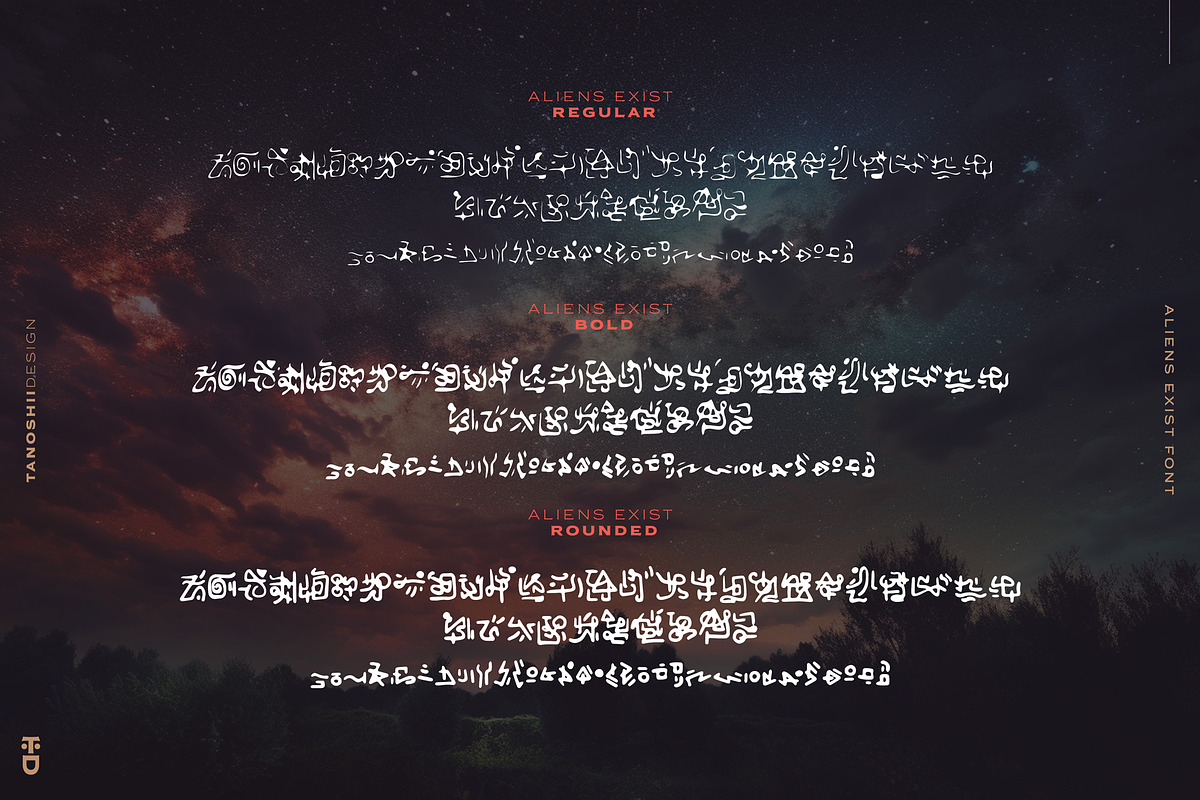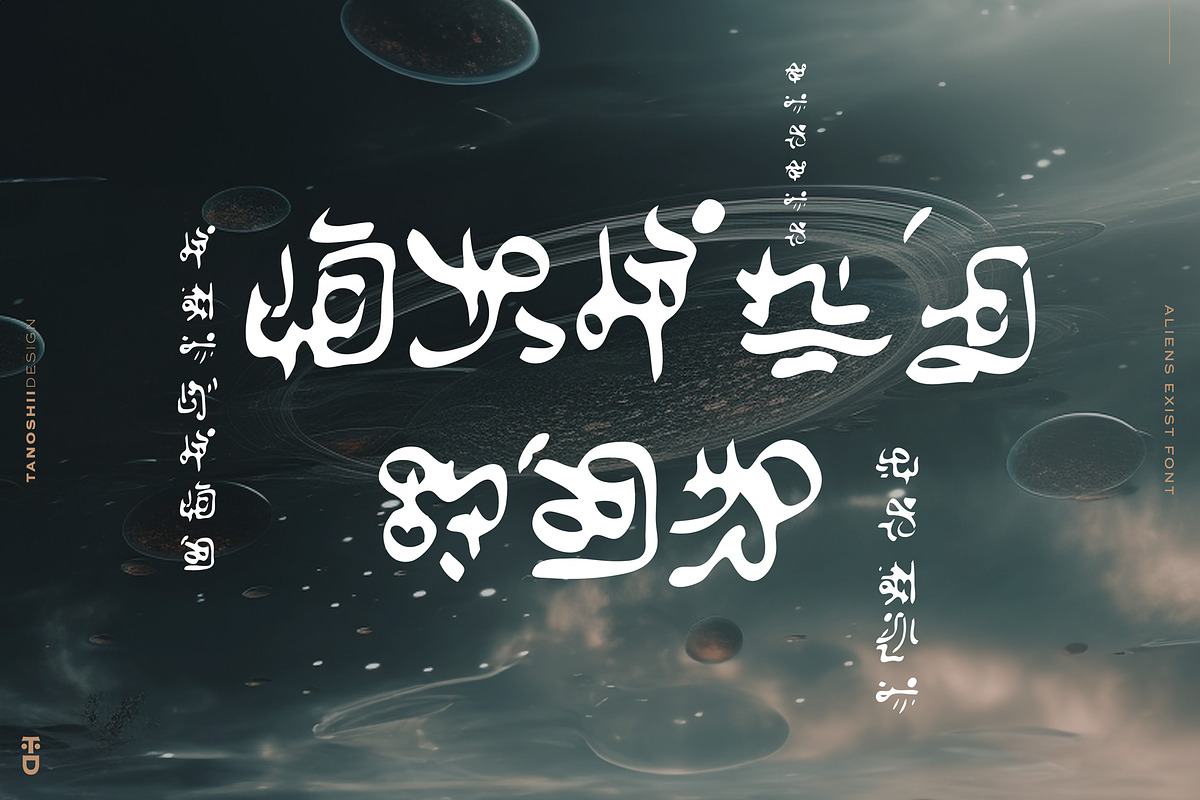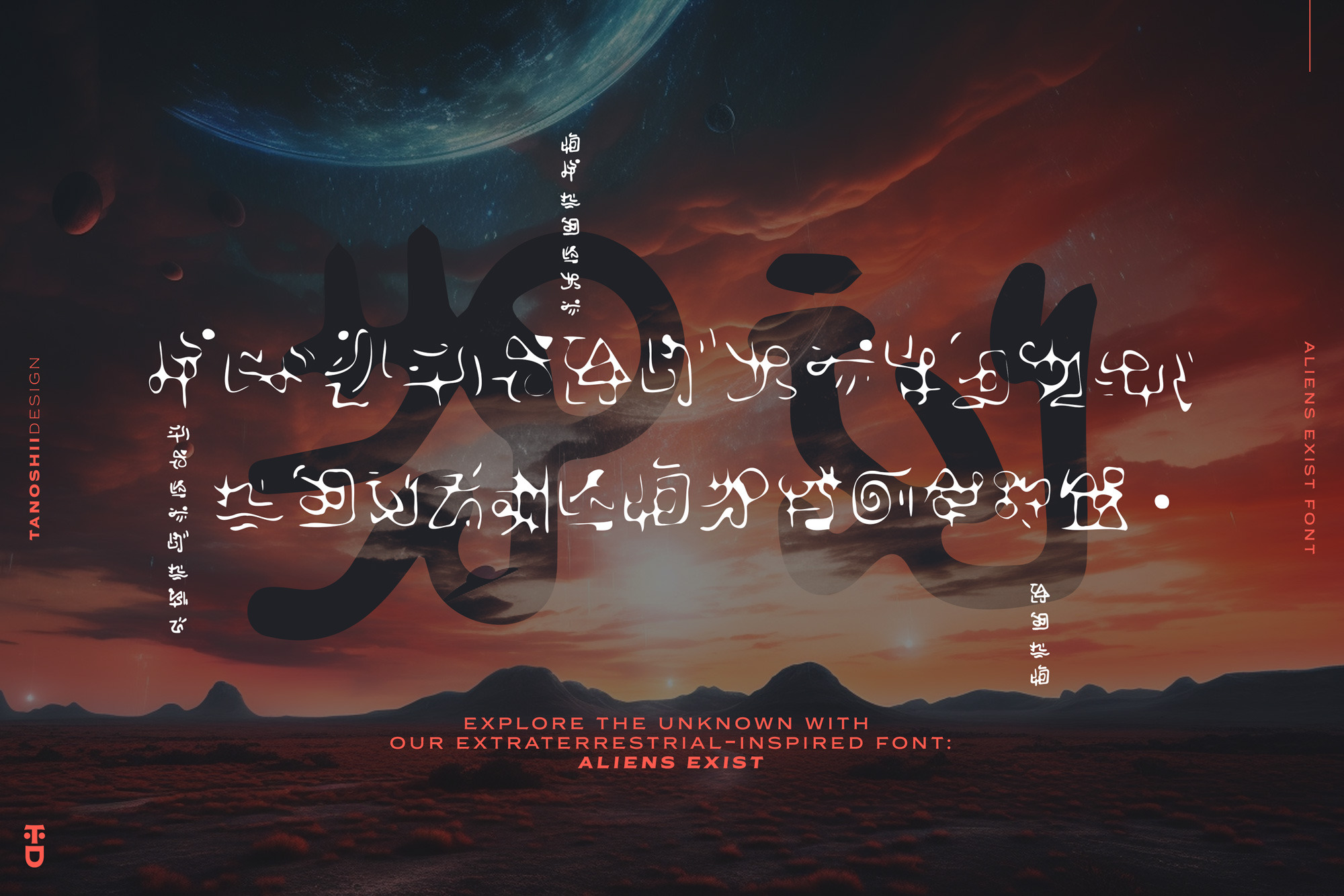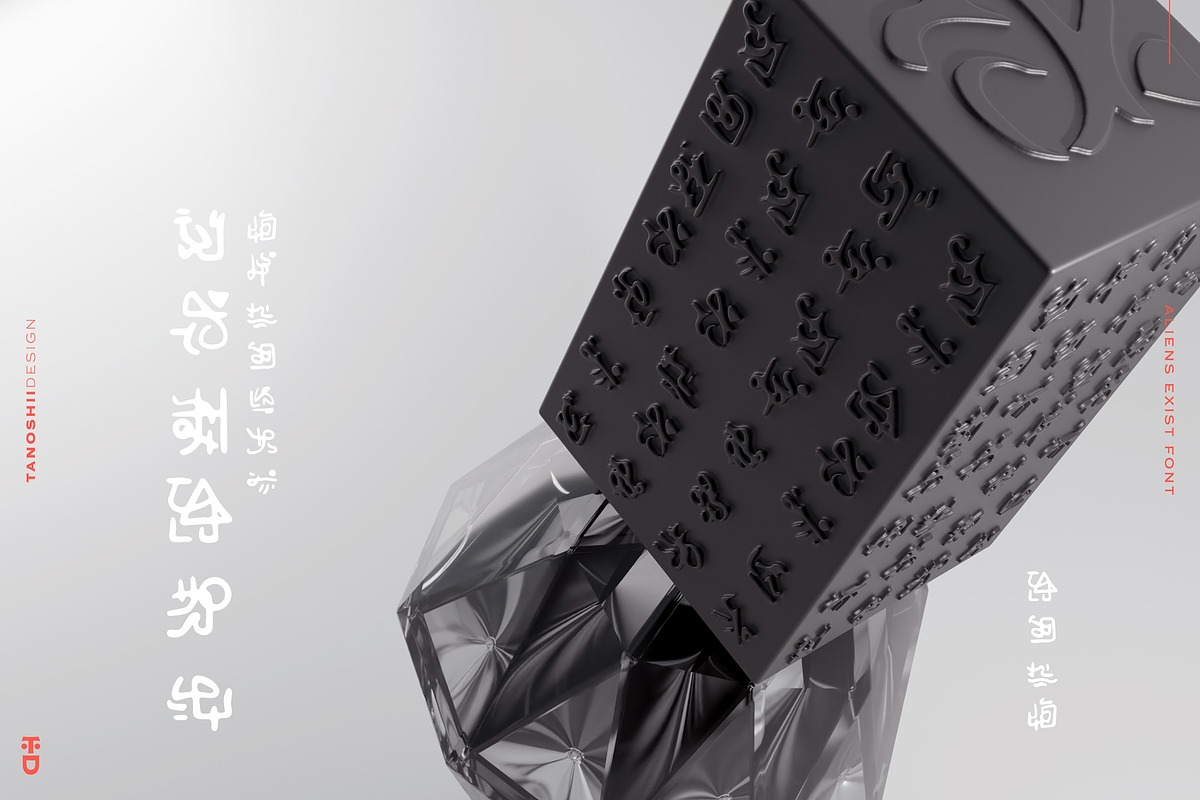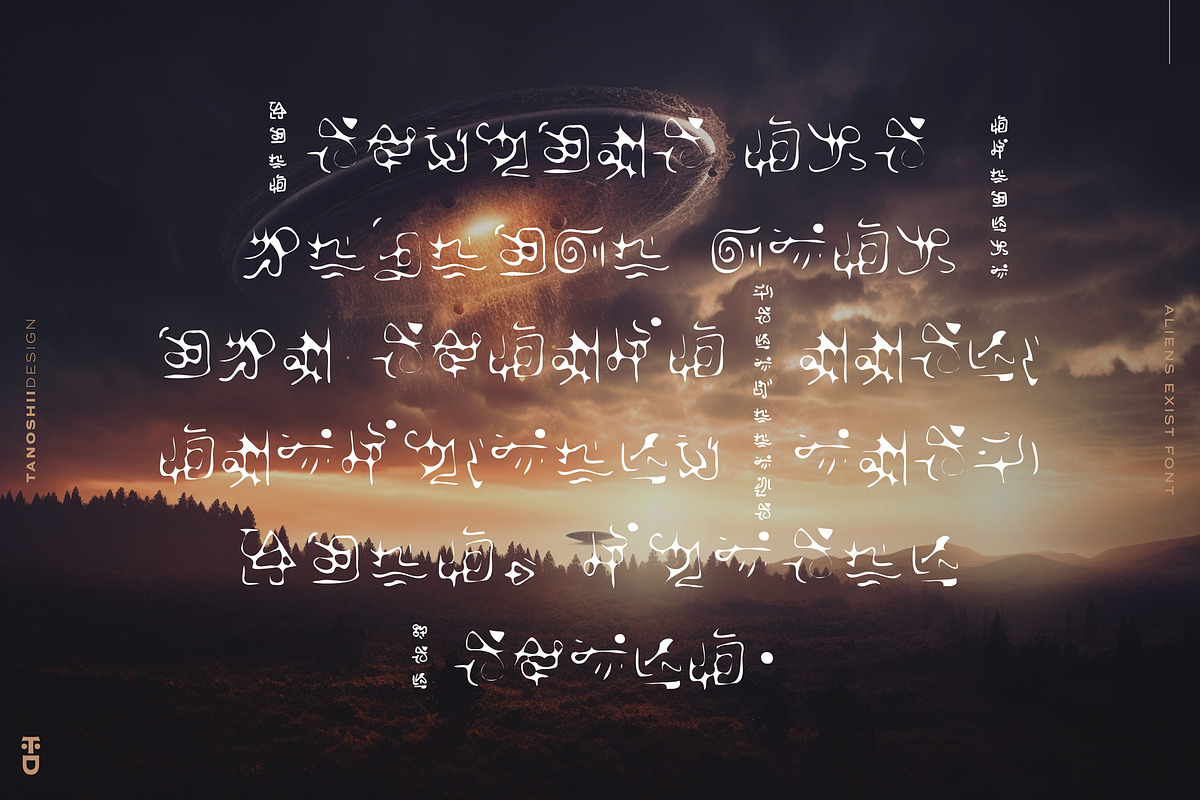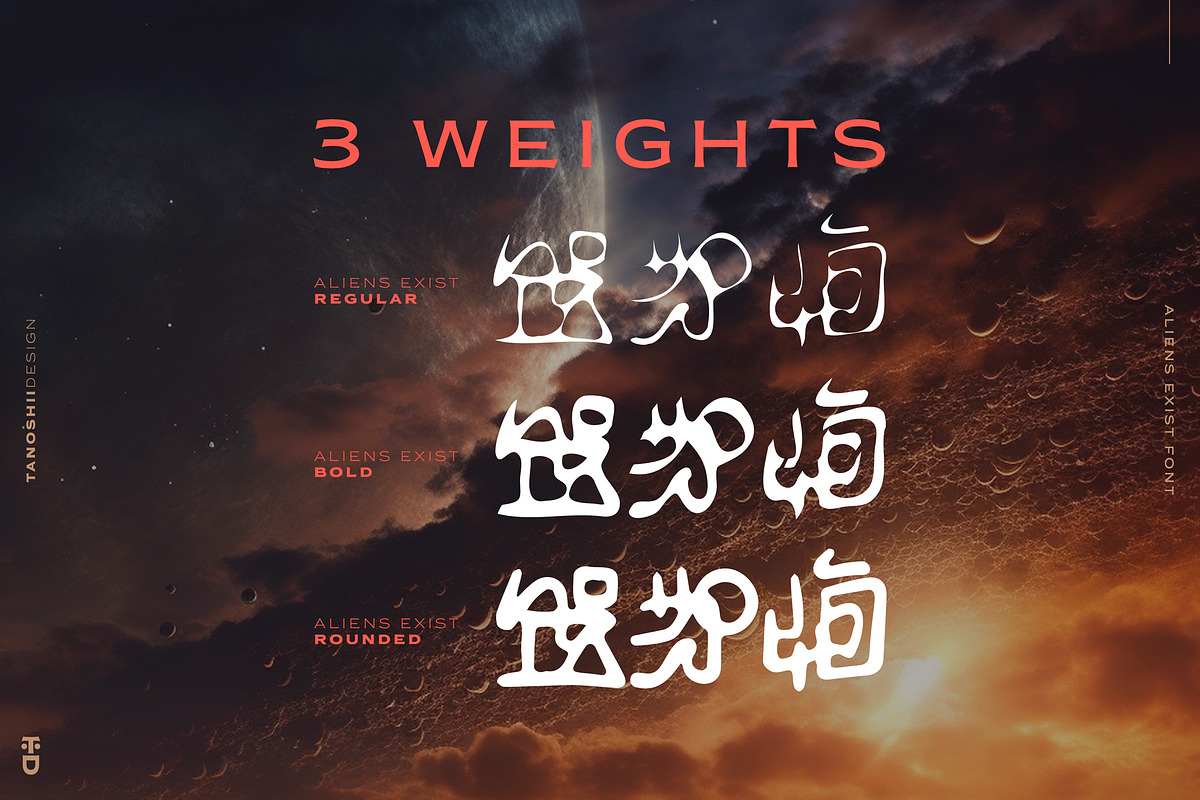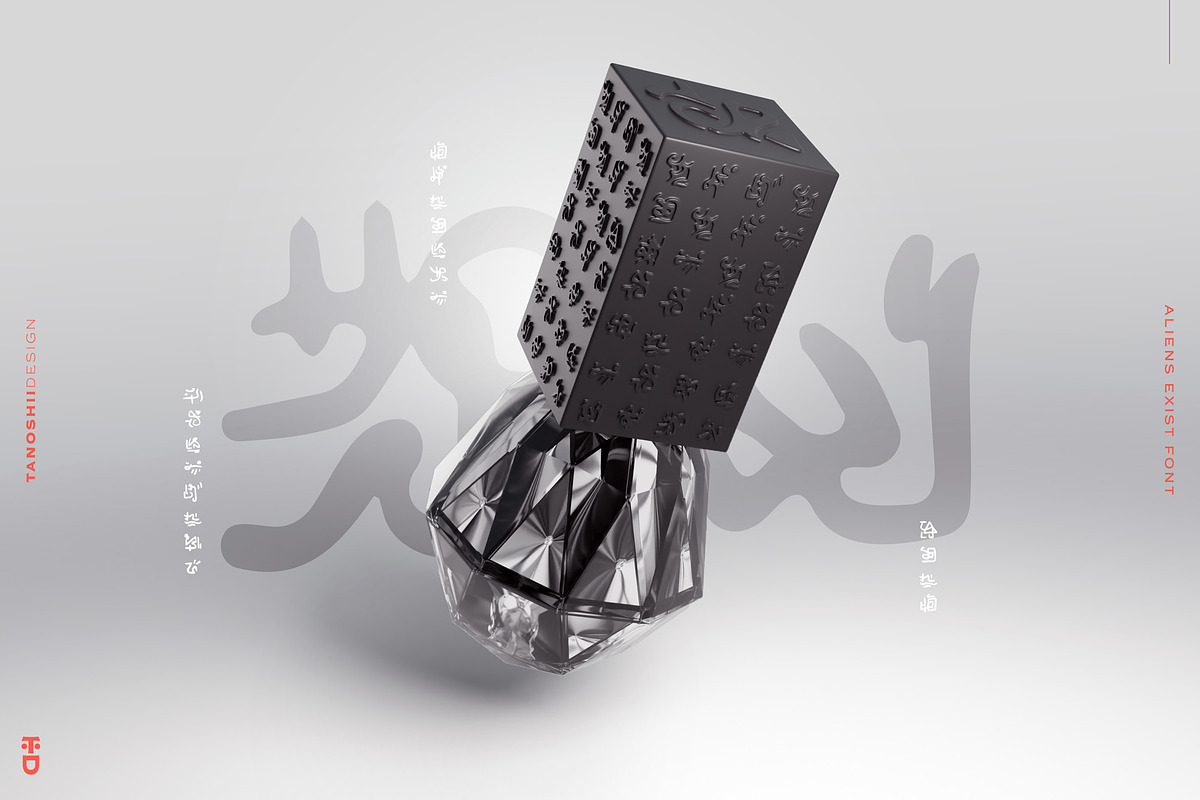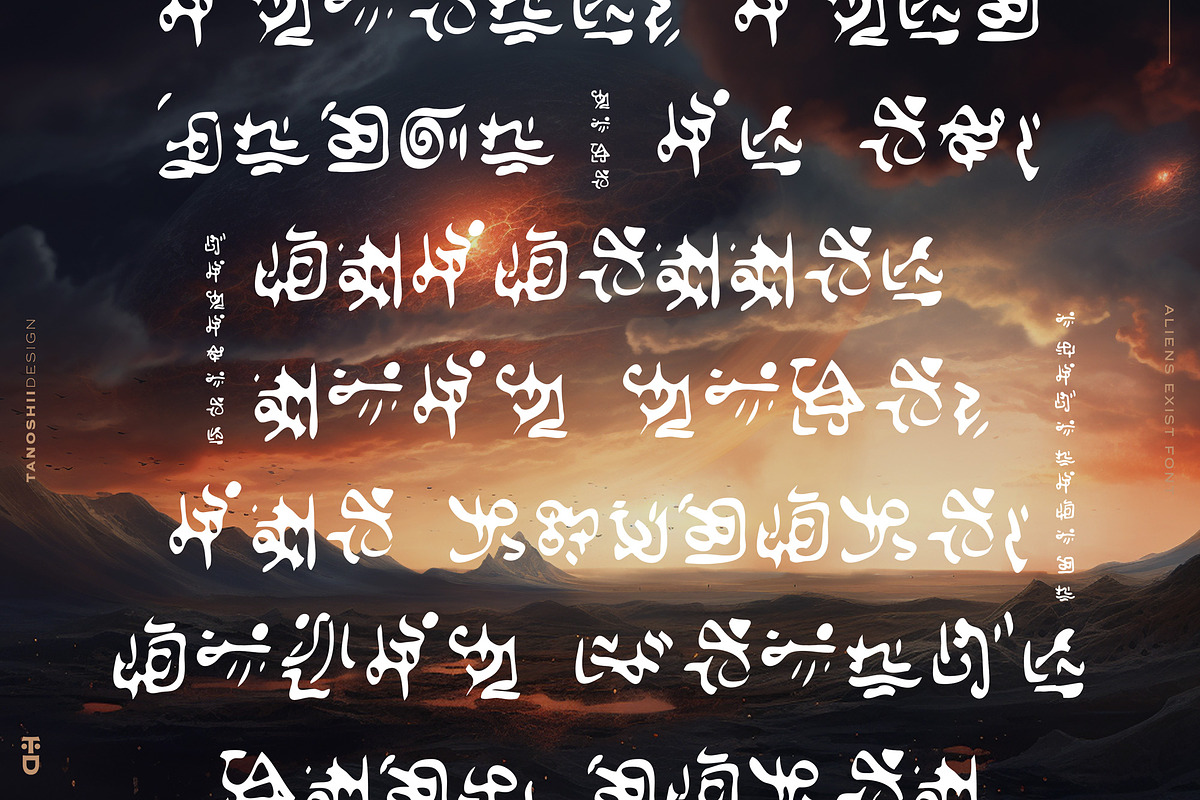
Aliens Exist - Font
Aliens Exist.
This extraterrestrial-inspired font will take your projects out of this world. ‘Aliens Exist’ comes with 3 weights: Regular, bold & Rounded for project that needs a futuristic edge. Get ready to blast off !